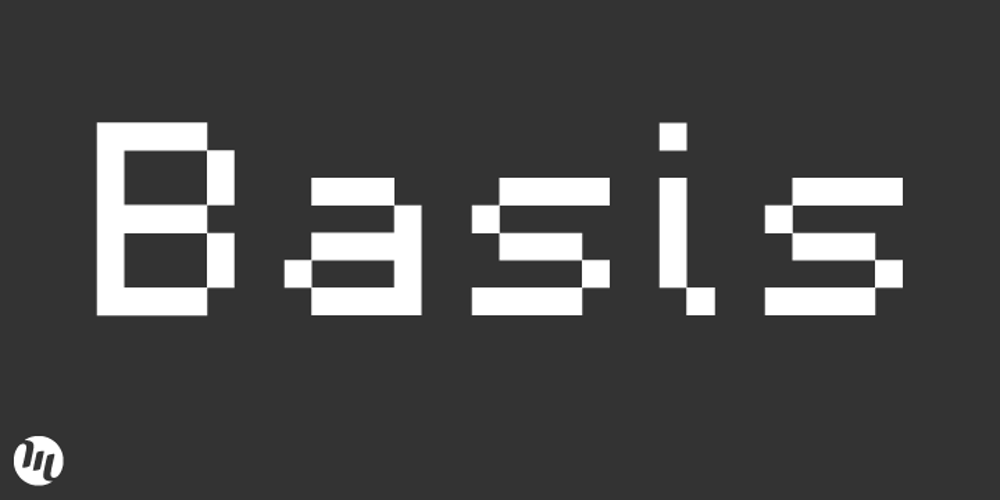
Basis
Basis font
Basis Font Family was designed by Matthew Aaron Desmond and published by MADType. Basis contains 6 styles and family package options. Basis is a bitmap font family which is happy being used at both small and large sizes. Designed as a 9 point bitmap face for the web, it offers different styles than most normal bitmaps. The stencil style can be used for display purposes, while the SmallCaps lowercase is great for website navigation menus.